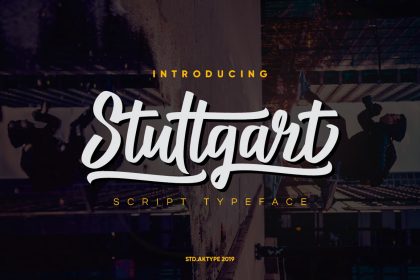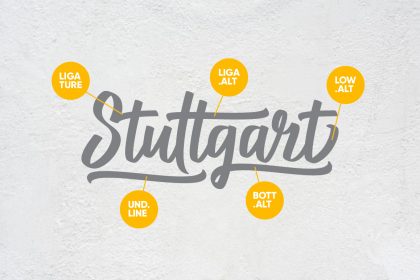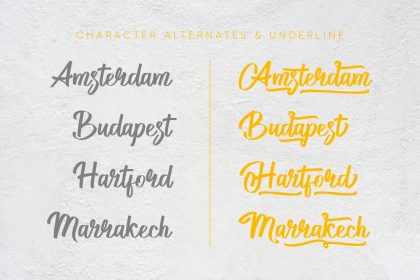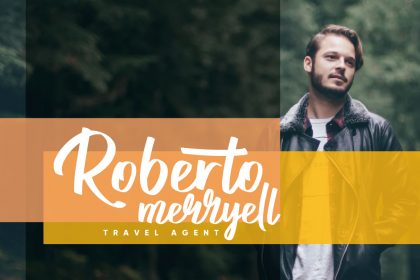
Stuttgart Script Font
This font is suitable for young, passionate design, such as logo design, t-shirts, branding, and various other design purposes. it is perfect for designing your own brand and for other branding designs, these letters look perfect on all printing techniques, foil emboss, embroidery, and others.